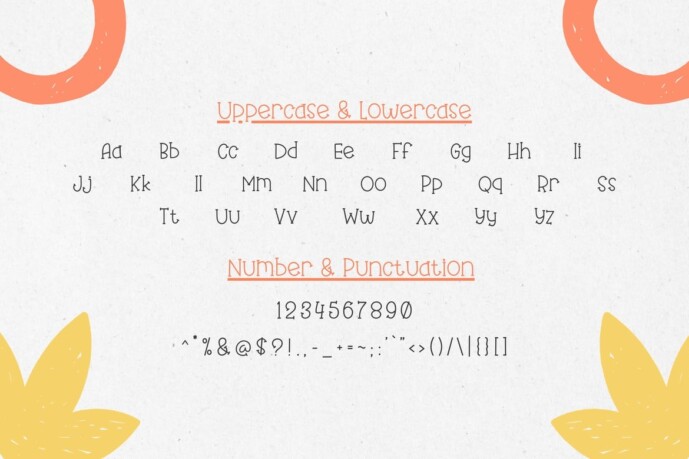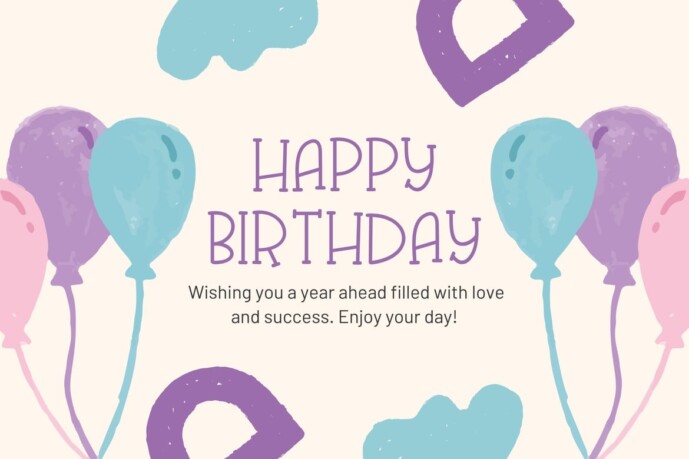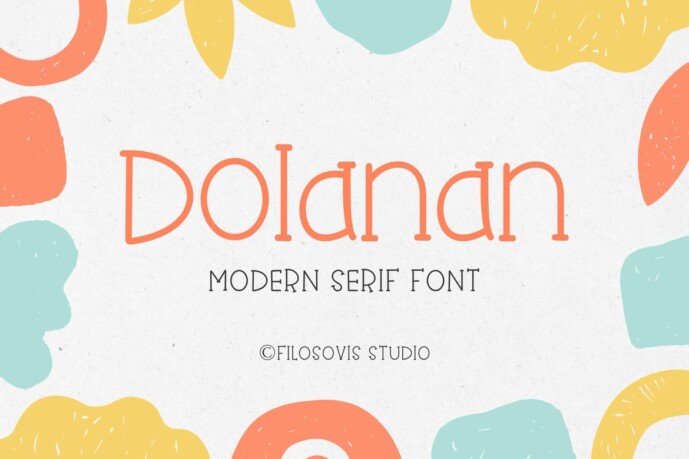
Dolanan Typeface
Designer: madebyfilosovis
Dolanan Typeface, For your creative project, use the Dolanan-themed serif font. The serif font script is suitable for all types of designs you produce, including greeting cards, posters, logos, and branding.